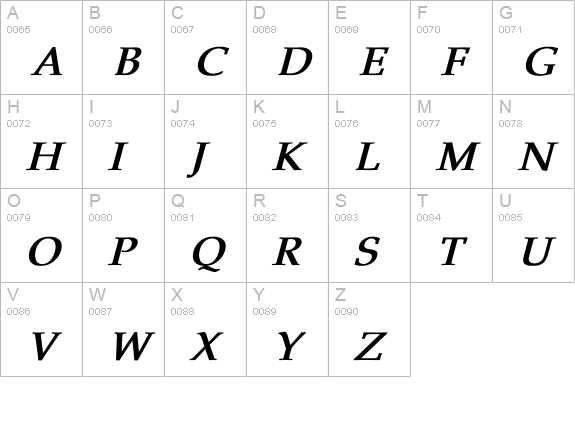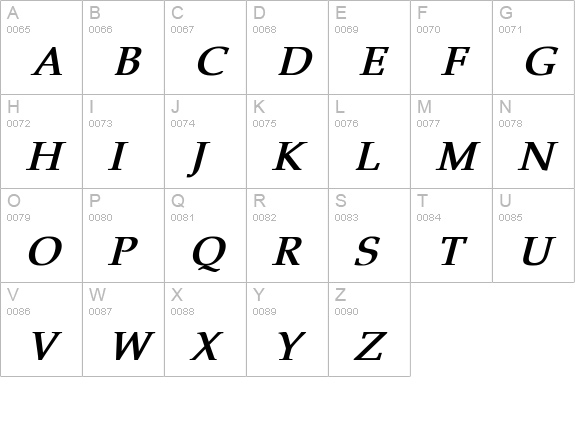
Pheasant Bold Italic Font Details
Pheasant Bold Italic is a strong, high-contrast, italic variant in the Pheasant typeface family \xE2\x80\x94 well suited to headlines, attention-grabbing titles, and strong calls-to-action.
Introducing Pheasant Bold Italic, a font that exudes elegance, sophistication, and a touch of playfulness. With its bold strokes and subtly slanted italics, this typeface effortlessly captures attention and adds a dynamic flair to any design project. Pheasant Bold Italic is the perfect choice for those seeking a versatile font that can be used across a range of creative endeavors. Its sleek and modern appearance makes it ideal for logo designs, branding materials, editorial layouts, and more. Whether you're designing a fashion magazine, a luxury brand website, or an eye-catching poster, Pheasant Bold Italic will elevate your design to new heights. One of the most remarkable aspects of Pheasant Bold Italic is that it is freely available to download at FontsMarket.com. Yes, you read that right – this exceptional font can be added to your collection without any cost. This generous offer allows designers, creators, and enthusiasts alike to access a high-quality font that would typically come with a hefty price tag. With Pheasant Bold Italic, you can effortlessly bring your creative vision to life while staying within your budget. This font not only offers outstanding aesthetics, but it also provides the freedom for designers to explore their artistic boundaries without any financial constraints. So, don't miss out on the opportunity to enhance your designs with Pheasant Bold Italic. Visit FontsMarket.com today and experience the beauty and versatility of this font firsthand. With its boldness, elegance, and the added benefit of being freely available, Pheasant Bold Italic is the perfect addition to your font library, guaranteeing that your designs will stand out from the crowd.